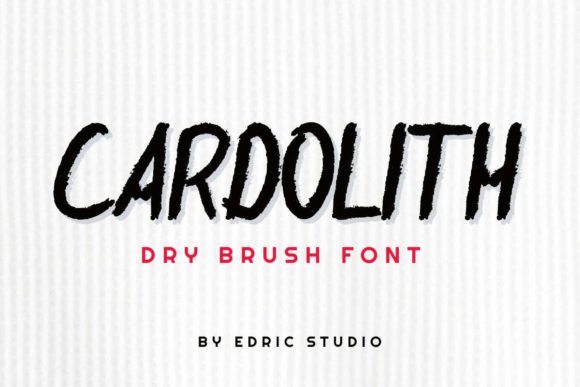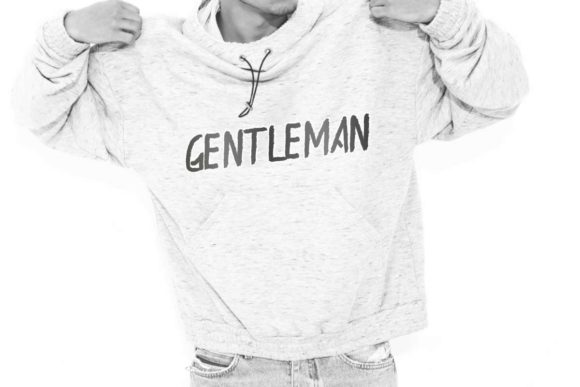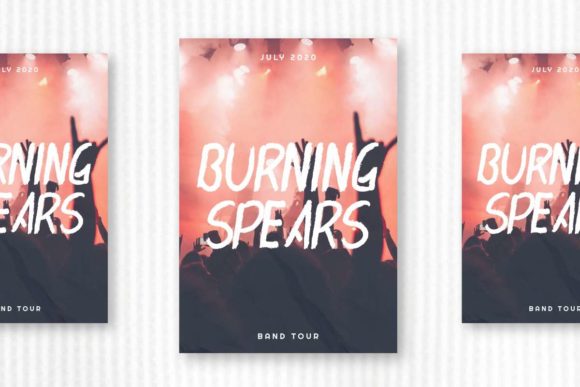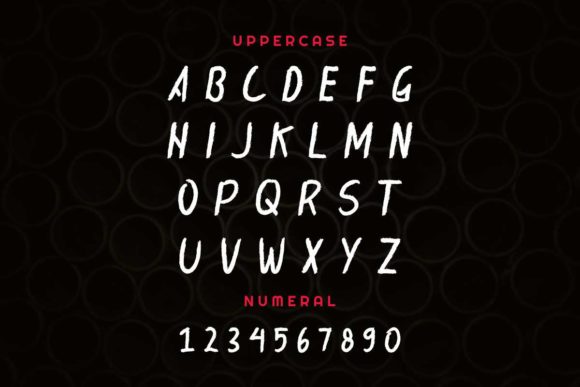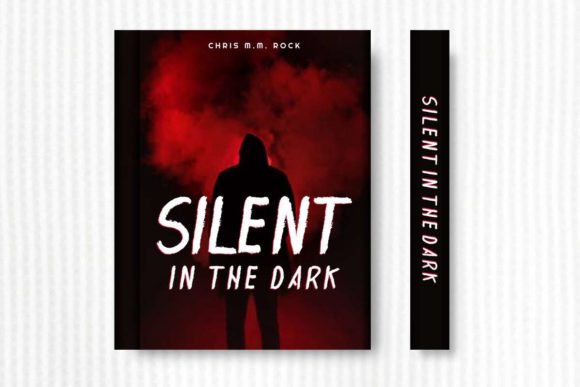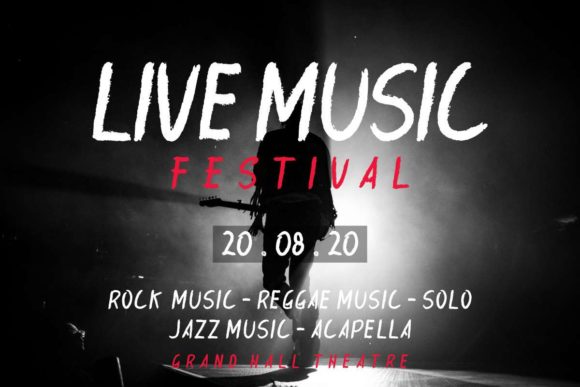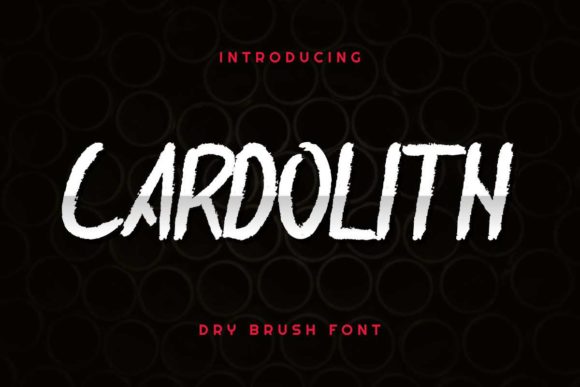
Introducing Cardolith Font: The Cute and Friendly Handwritten Font for Your Designs
Are you looking for a font that can add a touch of warmth and personality to your designs? Look no further than Cardolith Font! This adorable handwritten font is perfect for designers and crafters who want to create a wide range of projects, from invitations and greeting cards to branding and marketing materials.
What Makes Cardolith Font So Special?
Cardolith Font is a cute and friendly handwritten font that is relaxed and a bit quirky. Its unique charm makes it the right match for a wide variety of designs, from playful and fun to elegant and sophisticated. The font’s irregularities and imperfections give it a human touch, making it perfect for projects that require a personal and approachable feel.
Key Features of Cardolith Font
- Cute and Friendly: Cardolith Font has a warm and inviting personality that is sure to capture the hearts of your audience.
- Handwritten: The font’s handwritten style gives it a personal and organic feel that is perfect for a wide range of projects.
- Relaxed and Quirky: Cardolith Font has a laid-back and playful vibe that makes it perfect for designs that require a bit of whimsy.
- Versatile: The font is suitable for a wide range of projects, from invitations and greeting cards to branding and marketing materials.
Cardolith Font is a dream come true for designers and crafters who want to add a personal touch to their projects. Whether you’re creating:
- Invitations: Use Cardolith Font to create beautiful and unique invitations for weddings, parties, and other special occasions.
- Greeting Cards: Add a personal touch to your greeting cards with Cardolith Font’s cute and friendly style.
- Branding and Marketing Materials: Use Cardolith Font to create a unique and memorable brand identity that stands out from the crowd.
- DIY Projects: Add a touch of personality to your DIY projects, such as crafts, scrapbooking, and journaling.
Why Choose Cardolith Font?
With so many fonts available, why choose Cardolith Font? Here are just a few reasons:
- Unique Style: Cardolith Font has a one-of-a-kind style that will set your designs apart from the rest.
- Ease of Use: The font is easy to read and use, making it perfect for designers and crafters of all levels.
- High-Quality: Cardolith Font is a high-quality font that is designed to deliver exceptional results.